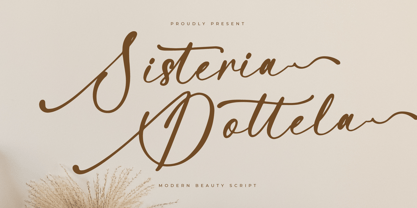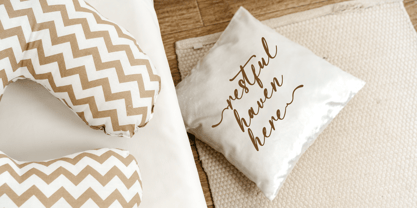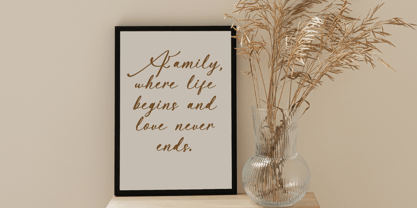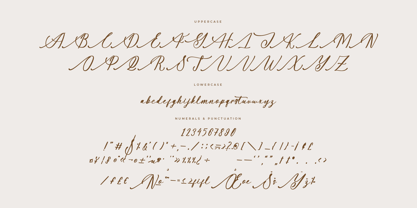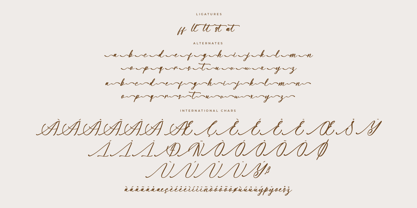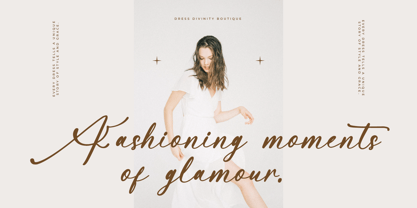
Sisteria Dottela
by Letterena Studios
The Sisteria Dottela Font Family was designed by Heru Utama Putra and published by Letterena Studios. Sisteria Dottela contains 2 styles and family package options. More about this family
Sisteria Dottela – Modern Beauty Script , from Letterena, is a Luxury Script font, suitable for any projects such as: logos, branding projects, homeware designs, product packaging, mugs, quotes, posters, shopping bags, t-shirts, book covers, name card, invitation cards, greeting cards, label, photography, watermark, special events, and all your other luxury and beautiful projects that need a Luxury serif taste.